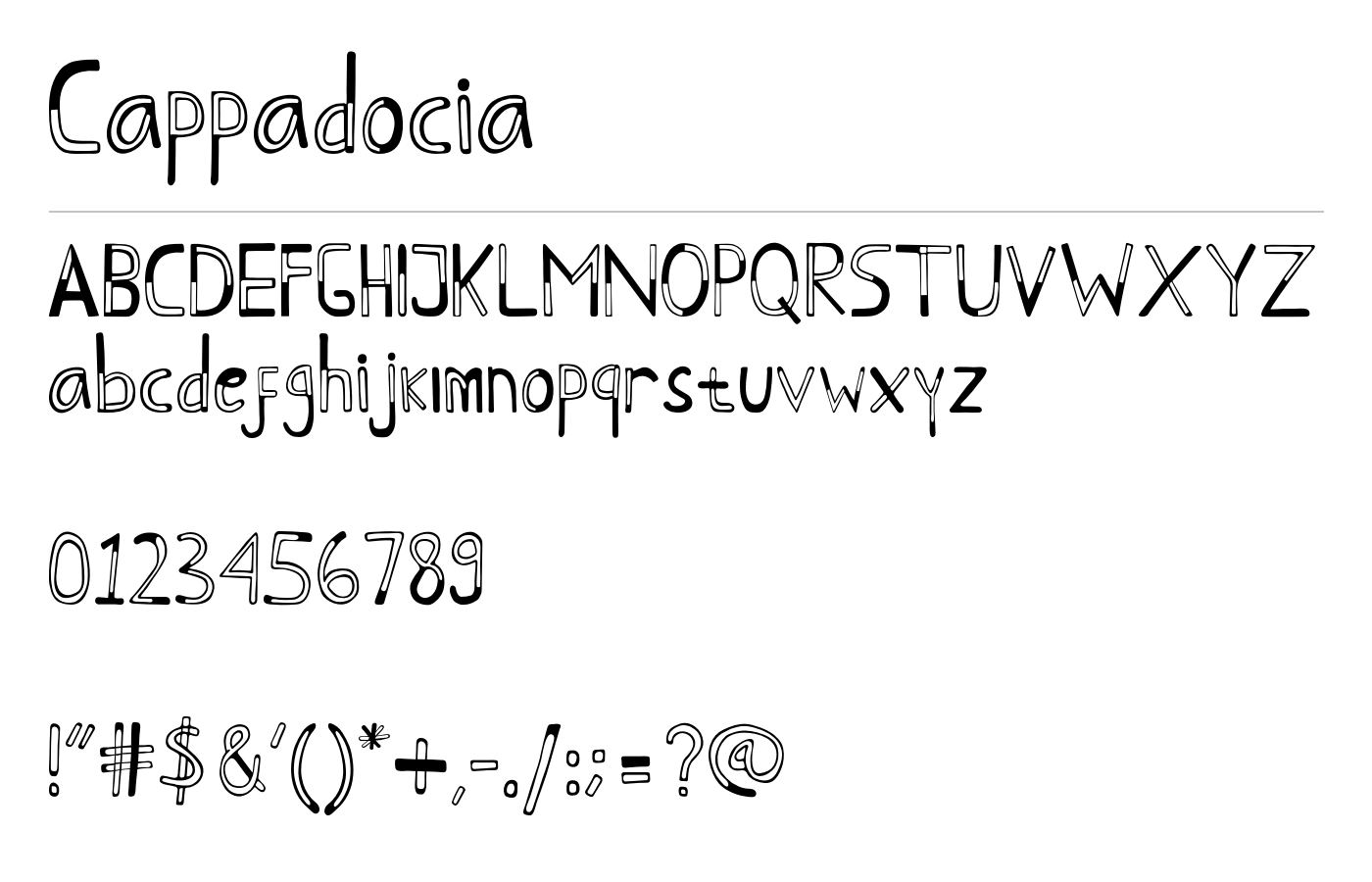
Cappadocia is a playful and quirky sans serif font characterized by its irregular, hand-drawn style with uneven stroke weights and whimsical letterforms. Its tall x-height and mix of thick and thin strokes add charm and personality, making it ideal for casual, creative designs like children's books, informal branding, or artistic projects. This font works best where a friendly, unique, and approachable tone is desired.
Cappadocia Font
About Cappadocia Font
| Font family | Cappadocia Font |
| Designer | Ferdiansyah |